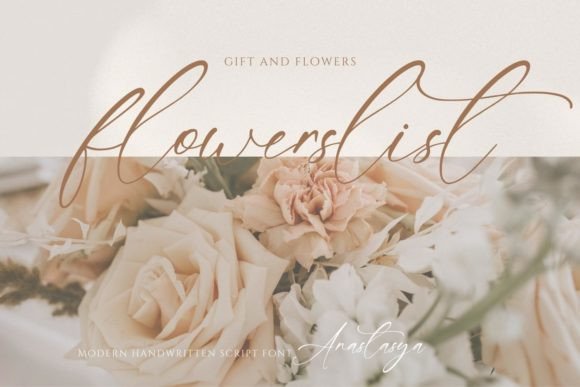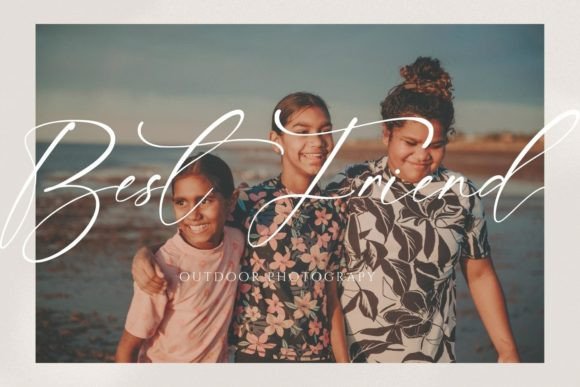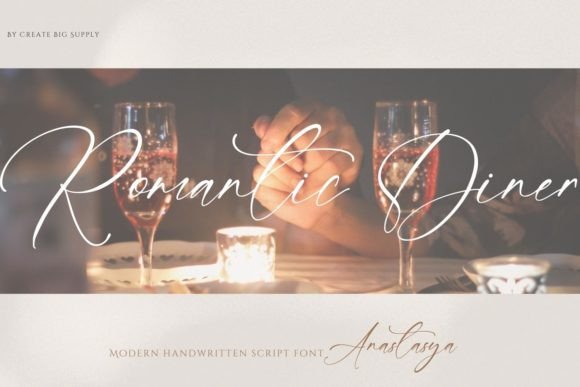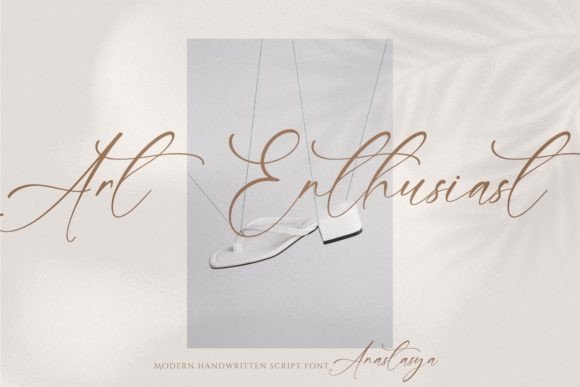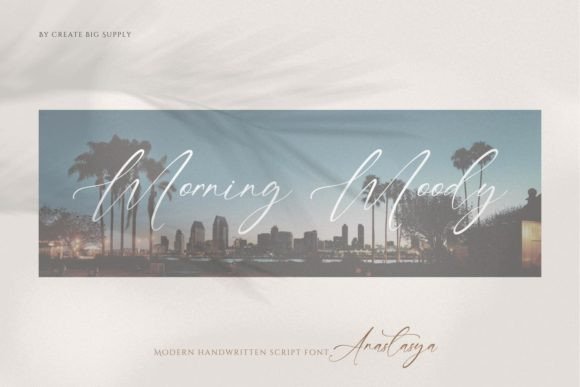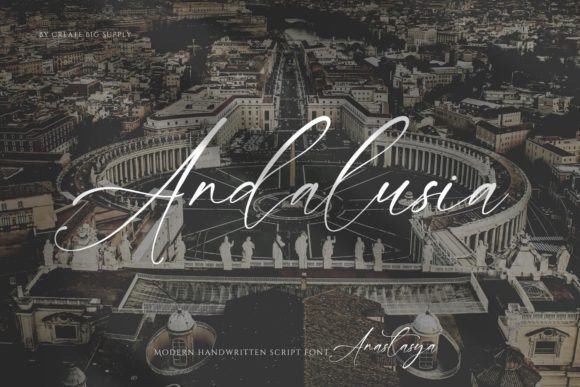
Discover the Captivating Beauty of Anastasya Font
Are you looking for a font that adds a touch of sophistication and elegance to your designs? Look no further than Anastasya, a stunning script handwritten signature font that is sure to captivate your audience. With its pretty, feminine style and timeless charm, Anastasya is perfect for a wide range of beautiful designs, from wedding invitations and branding materials to digital products and craft projects.
The Elegance of Anastasya
Anastasya is a beautifully crafted font that showcases a elegant script style, perfect for adding a touch of luxury and sophistication to your designs. The font features a full character set, including uppercase and lowercase letters, numbers, punctuations, ligatures, and multilingual support, making it versatile and easy to use. Whether you’re creating a wedding invitation, a logo, or a digital product, Anastasya is sure to impress.
Key Features of Anastasya
- Full Character Set: Anastasya includes a comprehensive set of characters, including uppercase and lowercase letters, numbers, punctuations, and multilingual support.
- Ligatures and Glyphs: The font features beautiful ligatures and glyphs, adding a touch of elegance and sophistication to your designs.
- PUA Encoding: With PUA encoding, accessing the delightful glyphs and ligatures is effortless, making it easy to use and customize.
- Feminine and Elegant Style: Anastasya’s pretty, feminine style is perfect for designs that require a touch of luxury and sophistication.
Perfect for a Wide Range of Designs
Anastasya is a versatile font that is perfect for a wide range of designs, including:
- Wedding Invitations: Add a touch of elegance and sophistication to your wedding invitations with Anastasya.
- Branding Materials: Use Anastasya to create stunning branding materials, such as logos, business cards, and letterheads.
- Digital Products: Anastasya is perfect for digital products, such as e-books, courses, and software.
- Craft Projects: Add a touch of luxury and sophistication to your craft projects, such as handmade cards, scrapbooking, and DIY projects.
Why Choose Anastasya?
With so many fonts available, why choose Anastasya? Here are just a few reasons:
- Unique and Elegant Style: Anastasya’s unique and elegant style sets it apart from other fonts, making it perfect for designs that require a touch of sophistication.
- Easy to Use: With PUA encoding, accessing the glyphs and ligatures is effortless, making it easy to use and customize.
- Multilingual Support: Anastasya features multilingual support, making it perfect for designs that require multiple languages.
In conclusion, Anastasya is a stunning script handwritten signature font that is sure to captivate your audience. With its elegant style, full character set, and PUA encoding, Anastasya is perfect for a wide range of beautiful designs. Whether you’re a designer, crafter, or DIY enthusiast, Anastasya is a must-have font that will add a touch of sophistication and luxury to your projects. So why wait? Discover the captivating beauty of Anastasya today and take your designs to the next level!